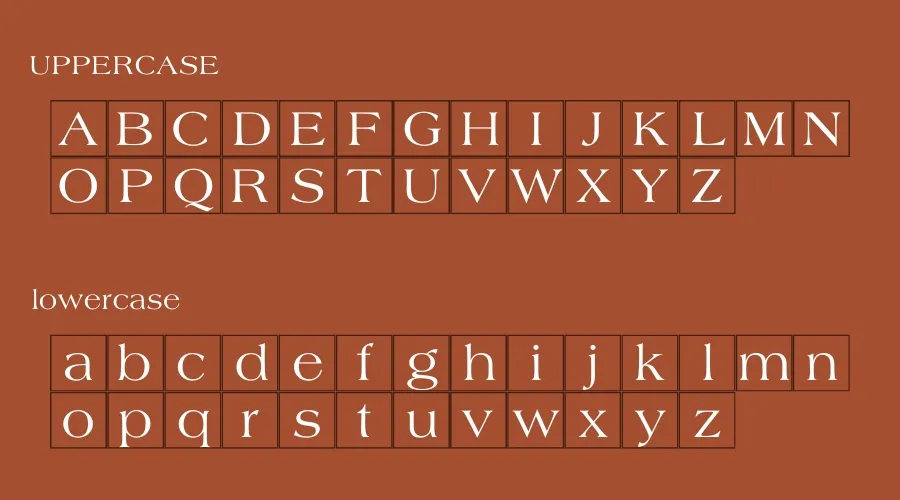
American T Font
About American T Font
These elegant American T Font letters have an eye-catching x-height. Numerous glyphs are available in this beautiful typeface, which you may use for a range of different purposes. You can download this font as a free version from this website.
These typefaces feature case-sensitive integers, divisions, constants, and respondents. Different styles are available in both thick and thin versions to produce a range of attractive layouts.
This text style is intriguing since it offers your projects a more elegant and beautiful appearance. The typeface may be used to create intriguing plans, books, company titles, and logos.
The text is also great for branding projects, home furnishing schemes, item bundling, or simply as a fashion text overlay on any background image.